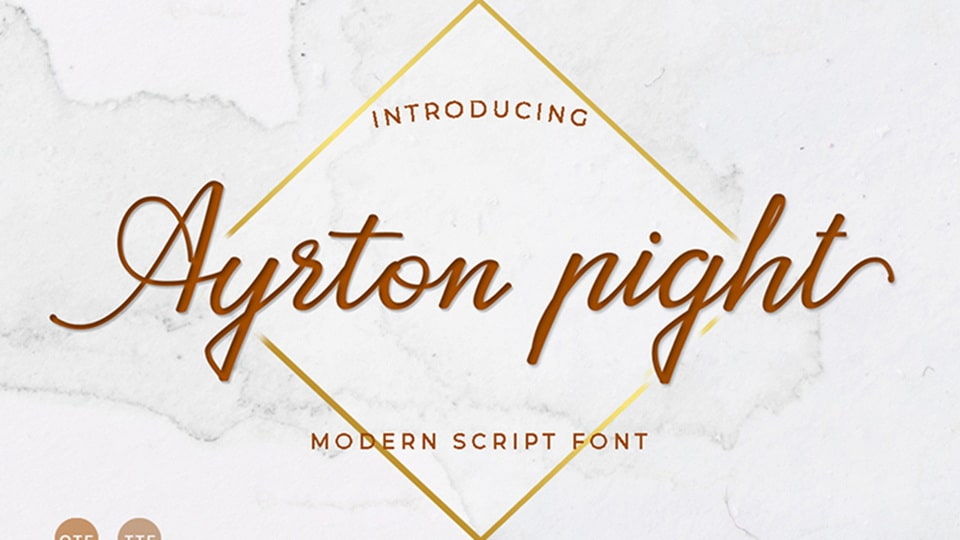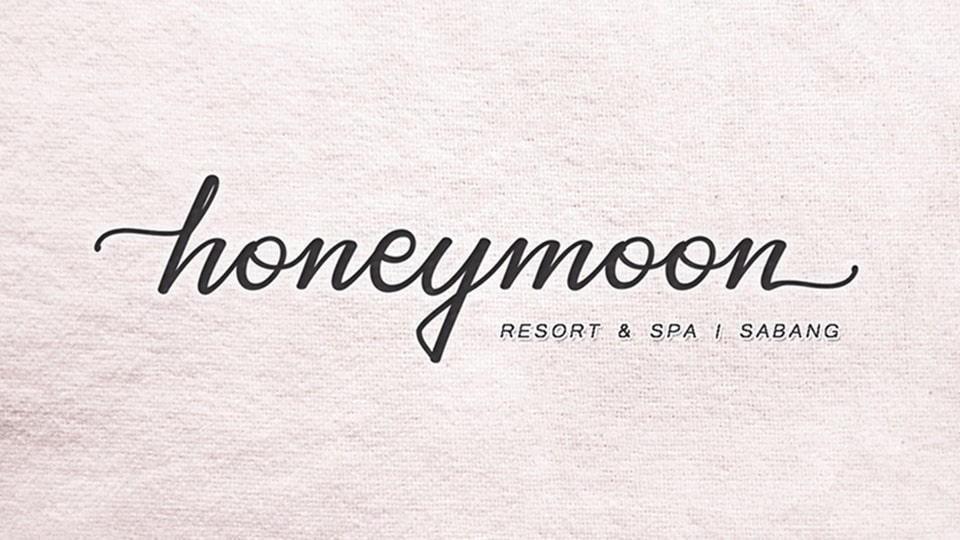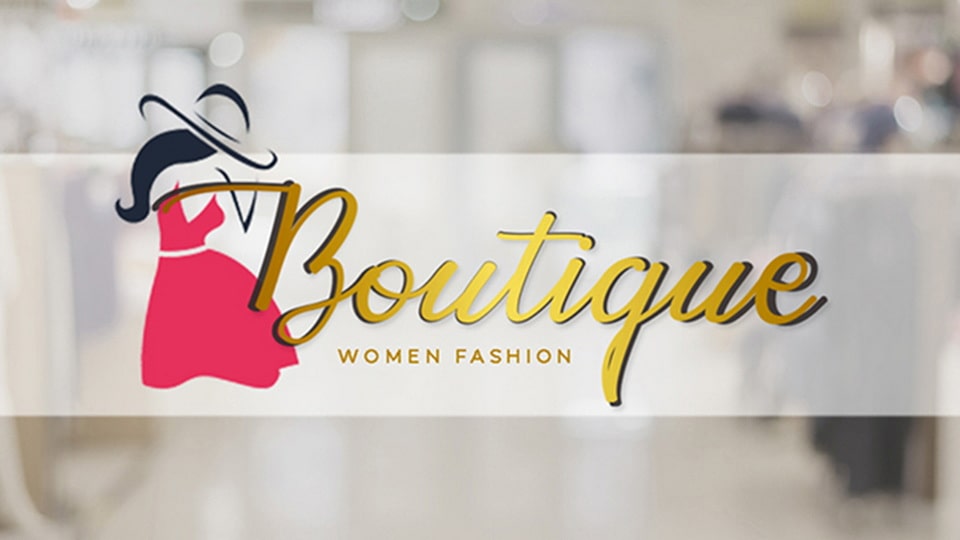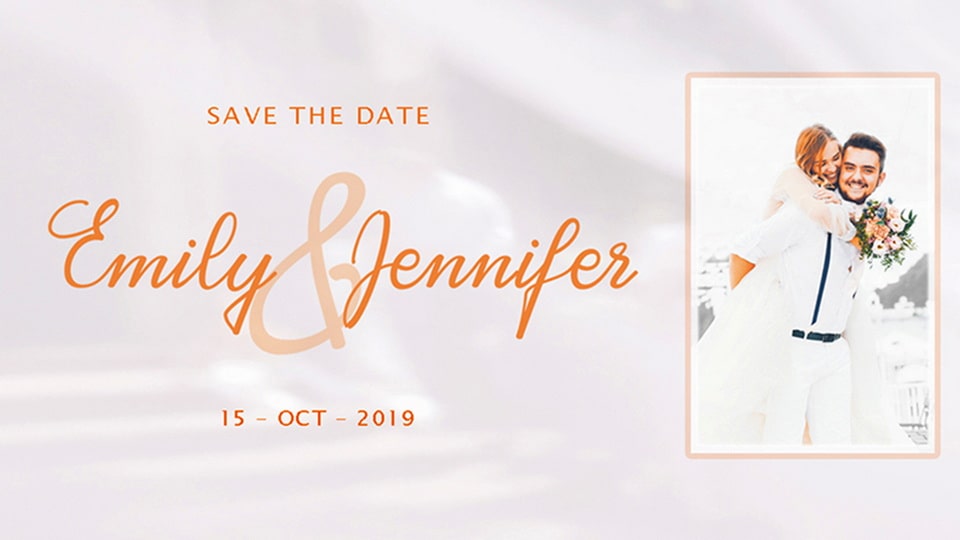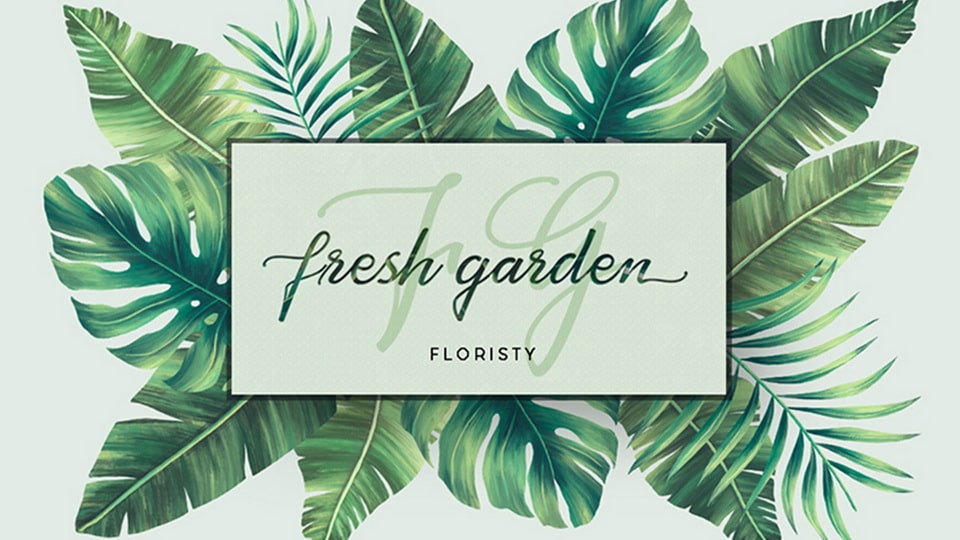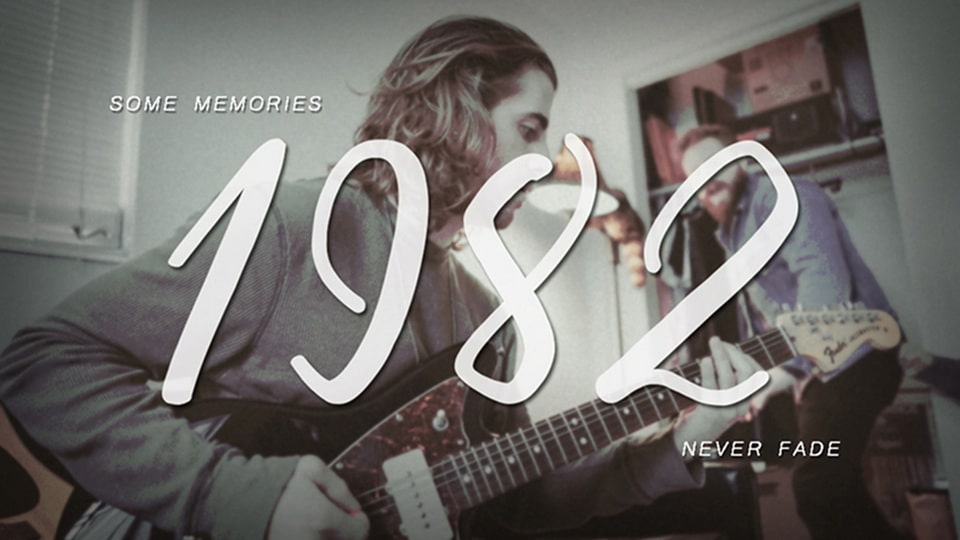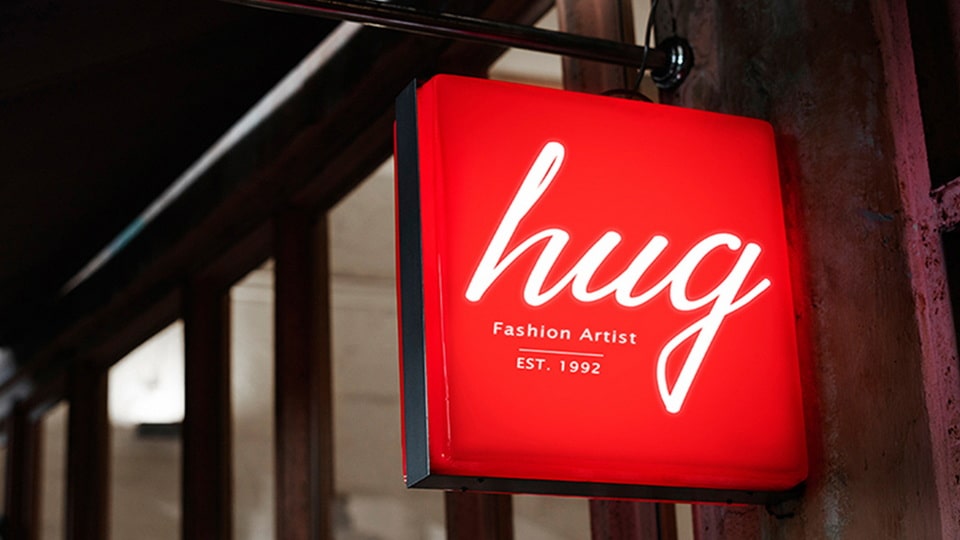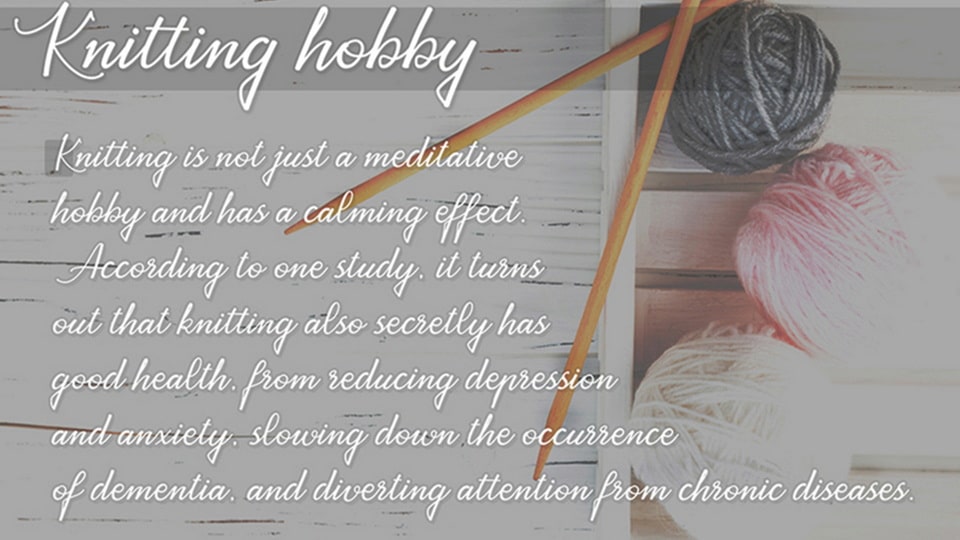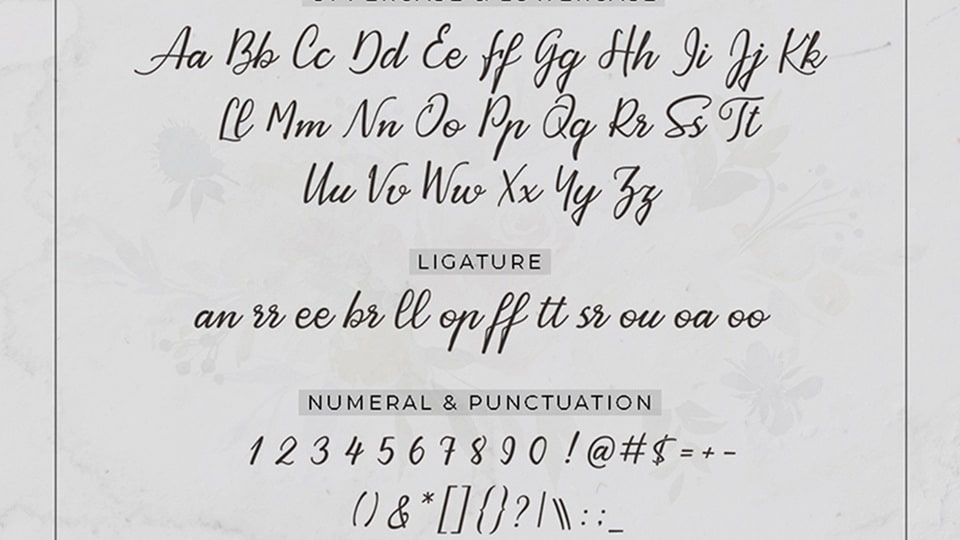
Ayrton Pight is a calligraphic font that comes with beautiful characters, a type of modern hand-rubbed calligraphy script, designed with high detail to bring stylish elegance.
Ayrton Pight is attractive as a type of font that is smooth, clean, feminine, sensual, glamorous, simple and very easy to read, because there are many fancy font connections.